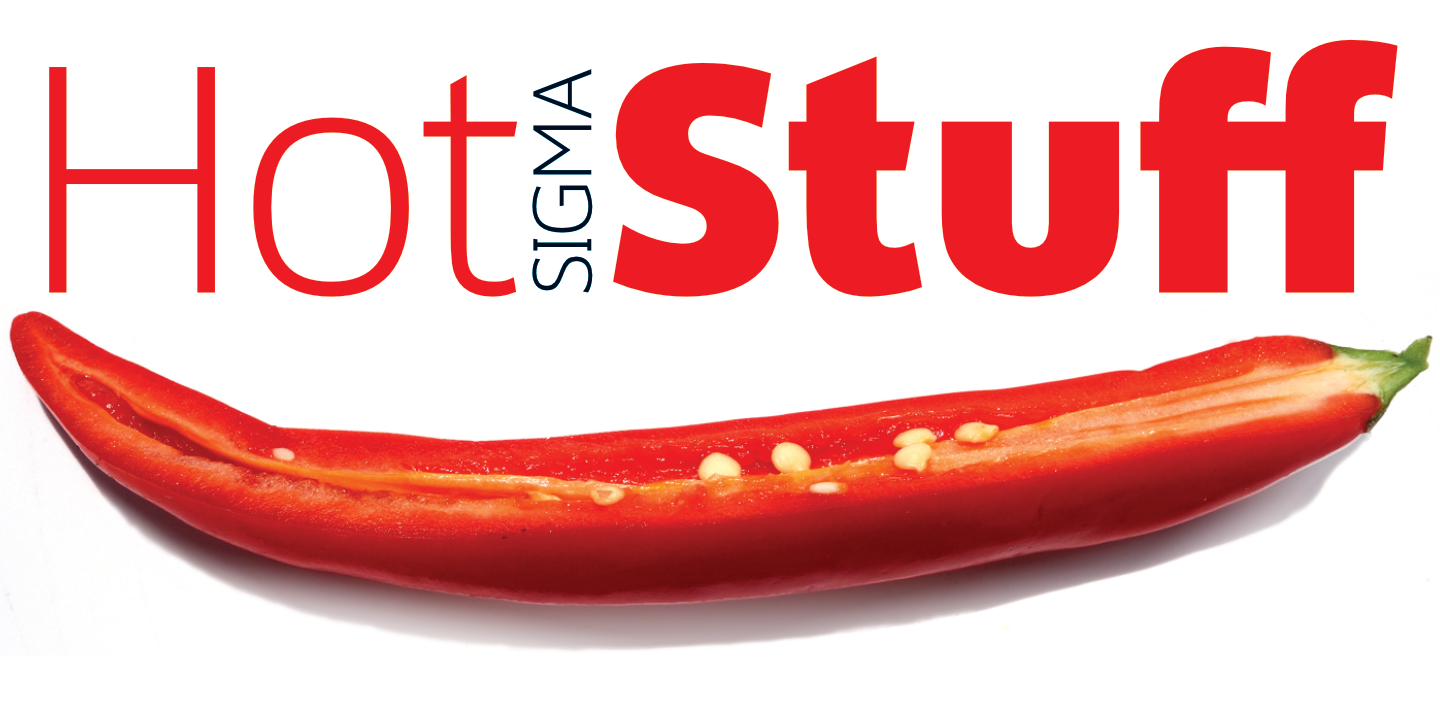
If you’re after a bold and modern sans-serif that delivers strength and clarity, Sigma Font Free Download is a top pick. Its clean lines and geometric design make it perfect for branding, editorial layouts, web design, and marketing materials that demand professionalism and impact.
Sigma Font Free Download features balanced letterforms and excellent readability, ensuring your message stands out clearly across all mediums. Whether you’re designing logos, headlines, or body text, Sigma adds a sleek, contemporary edge.
This font works perfectly across print and digital projects, ideal for startups, agencies, and businesses aiming for a modern, confident brand presence.